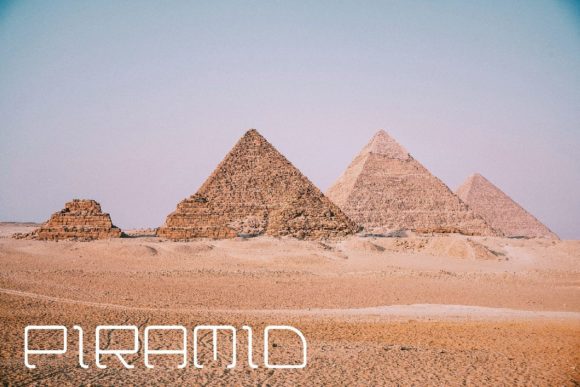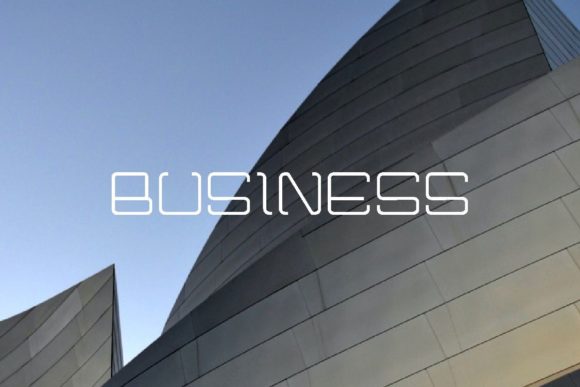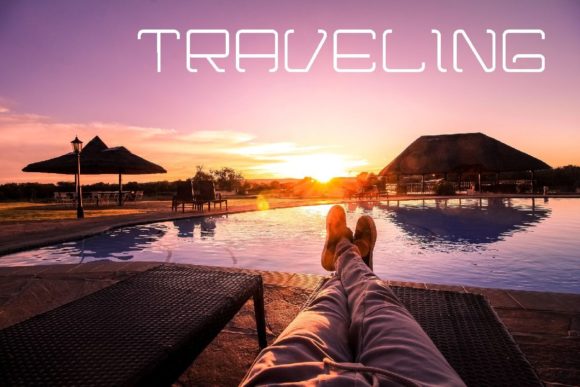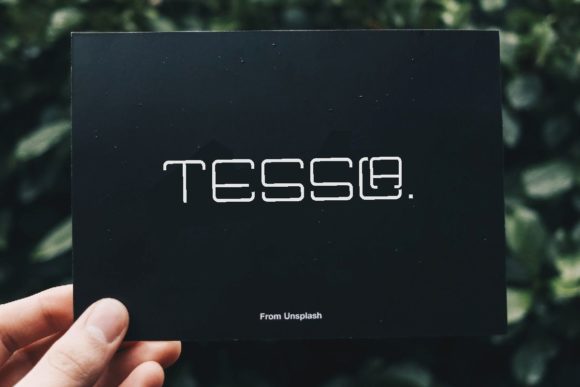
Introduction to Poneglyph Font Font
Fonts play a crucial role in design, and the Poneglyph Font font is a typeface that brings both character and versatility to any project. Whether you’re working on a branding project, a website, or a print design, the Poneglyph Font font offers a unique style that can elevate your work.
Poneglyph is a unique display font with a contemporary feel.
Get inspired by its modern charm and use it for any design project that needs a cool touch .
Key Features of Poneglyph Font Font
Why Choose Poneglyph Font Font?
The Poneglyph Font font is more than just a typeface – it’s a design tool that helps you communicate your message with style and clarity. Its unique character set and versatile design make it suitable for a wide range of applications, from elegant invitations to bold headlines.
With its carefully crafted letterforms and balanced proportions, the Poneglyph Font font ensures readability and visual appeal across all mediums.
What makes Poneglyph Font font special?
The Poneglyph Font font stands out with its unique design, exceptional readability, and versatility across various design applications.